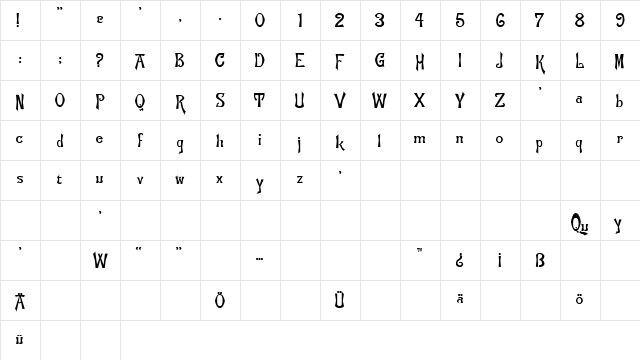
Flemish Normal Free Font
Flemish Normal
Design Context for Flemish
Flemish is a composed and adaptable typeface that performs quietly and consistently across a wide range of design contexts.